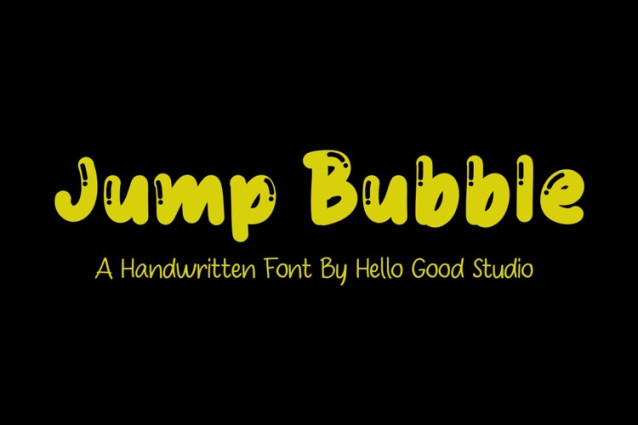
Jump Bubble Font
Jump Bubble Font is a chunky, comic, and cartoon display font. With its neat and joyful personality, this font will enhance any project you wish to create!